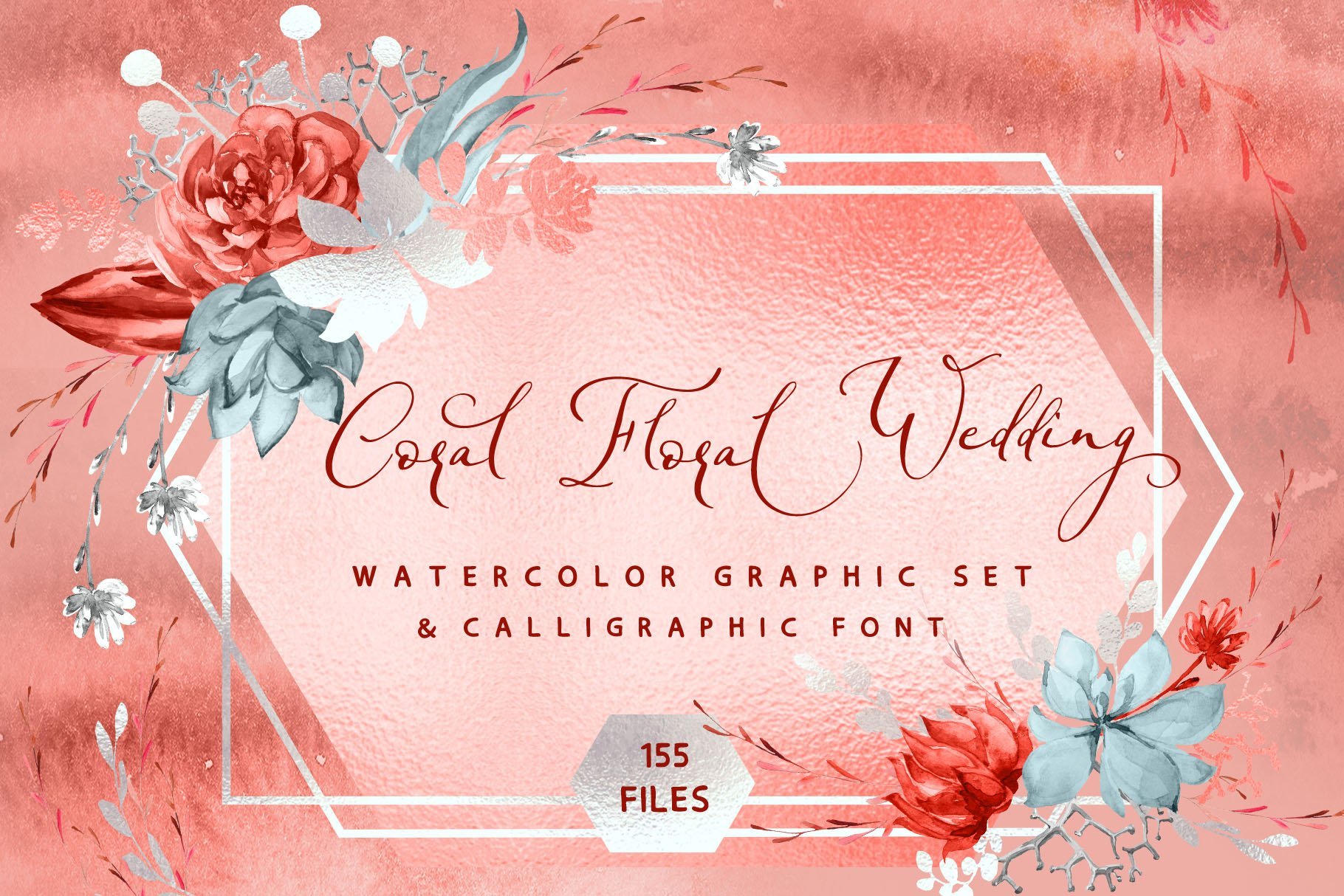
Say hello to my new big watercolor graphics pack - Coral Floral Wedding clip art & and additional fonts.
This collection of hand-painted elegant and delicate watercolor succulent flowers and watercolor background. This gorgeous set of floral elements also includes as additional silver, orange, burgundy, and turquoise colors. It would work perfectly for branding, logos, wedding stationery, social media, packaging, textile, marketing material, web background and other projects that require an elegant touch.
You can use the separate elements to create your own arrangements for a quick and easy design. The floral alphabet is perfect for wedding monograms or branding identity.
You also receive 3 fonts – perfectly fitting handwritten calligraphic script font and sans serif font & additional symbols font.
Calligraphic script font contains a full set of uppercase letters and 4 full sets of lowercase letters, (standard, alternative, and initial, final form. To make a needed form just type a letter with a number such as a1, a2 a3...) and 35 ligatures - which can be used to create a handwritten calligraphy look.
The Symbols font have over 36 hand-drawn elements, illustrations, and swashes and can help to make your design more original. Combine and arrange swashes and illustrations to create your own designs and make borders, frames, dividers, logos and more.
Additional sans serif font contains all caps characters. All fonts have multilingual support for 27 languages.